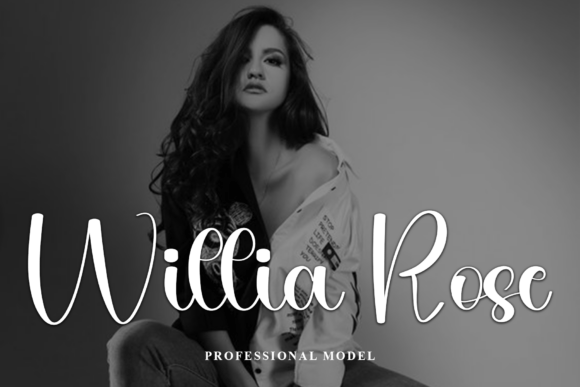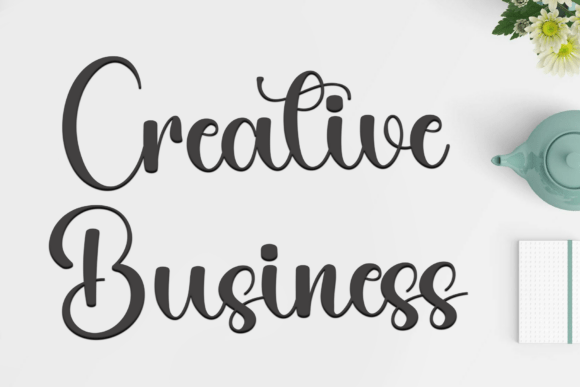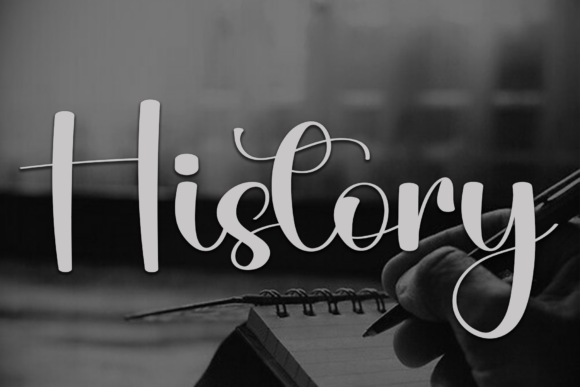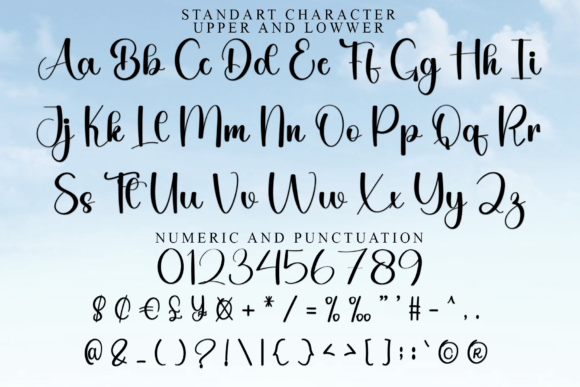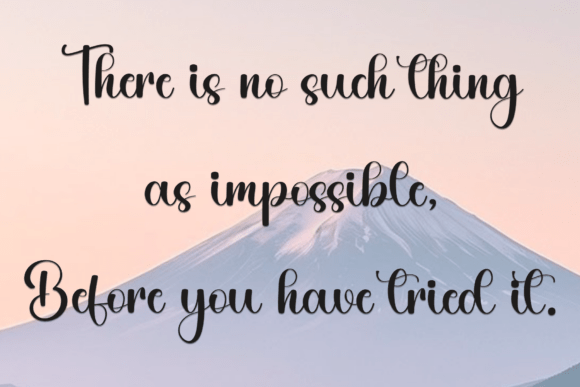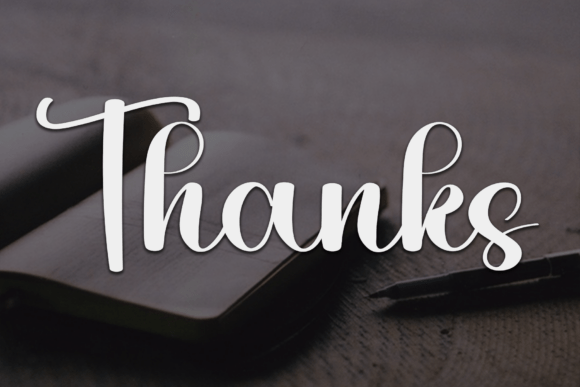
The Elegance of Biography Font: A Designer’s New Best Friend
I’ll never forget the time I was working on a romantic wedding stationery project, and my client asked for a font that exuded classic elegance with a modern twist. I scoured the internet, tried countless fonts, but nothing seemed to fit the bill. That was until I stumbled upon Biography Font. ✨
This refined script font has been a game-changer for my design projects, and I’m excited to share its beauty with you. Biography Font masterfully blends timeless sophistication with contemporary flair, making it perfect for editorials, book covers, personal branding, and, of course, romantic stationery.
What I Love About Biography Font
- ✨ Sweeping curves that add a touch of luxury to any design
- ✅ Thoughtful balance that ensures the font remains legible and elegant
- 💫 Versatile and adaptable to various design styles and projects
- 🔥 OpenType features that allow for creative experimentation and customization
While Biography Font is an exceptional font, there are a few minor quirks to be aware of:
- 🤔 Limited availability of certain glyphs in some applications, which may limit its use in specific contexts
- ⚠️ Requires careful kerning to ensure optimal spacing and readability
The Backstory Behind Biography Font
Biography Font was designed by a talented typographer who aimed to create a font that would evoke the elegance of classic scripts while incorporating modern elements. The designer’s inspiration came from vintage wedding invitations, antique books, and elegant calligraphy. The result is a font that exudes sophistication and romance.
| Font Name | Biography Font |
| What makes Biography Font unique? | Biography Font’s unique blend of classic elegance and modern flair, along with its sweeping curves and thoughtful balance. |
| Is Biography Font suitable for body text? | While Biography Font is primarily designed for display purposes, it can be used for short paragraphs of body text. However, its elegance shines best in headlines and titles. |
| Does Biography Font support OpenType features? | Yes, Biography Font features OpenType capabilities, including glyphs and stylistic alternates, allowing for creative experimentation and customization. |